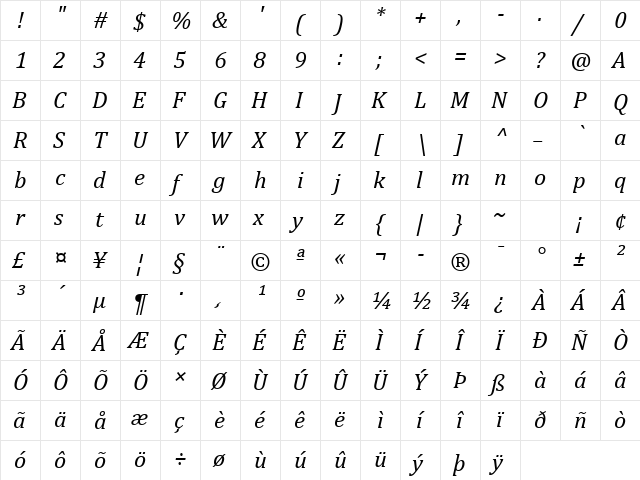
Cambria Italic Font Preview
Cambria Italic
Cambria Italic Font Details
| Foundry | Microsoft Corporation |
| Designer | Agfa Monotype Corporation |
Design Context for Cambria Typeface
Cambria takes a measured approach to typography — its balanced proportions and neutral character make it a reliable workhorse for both digital and print work. The slanted form adds forward momentum and visual energy.
Pro Tip: Try Cambria for annotation and caption copy alongside an upright companion — the contrast in angle creates a dynamic but ordered typographic system.